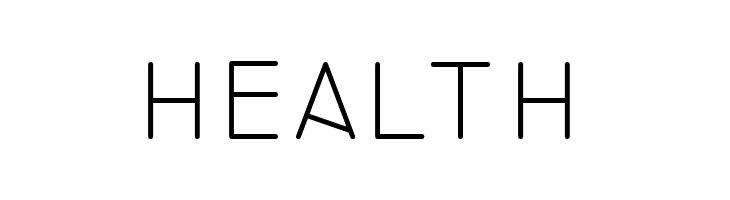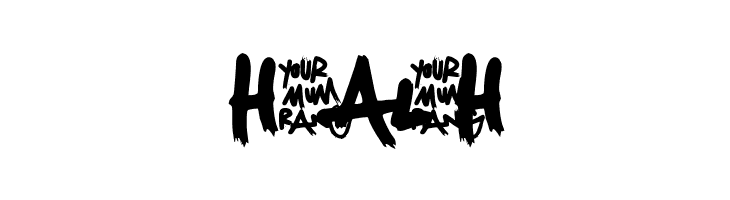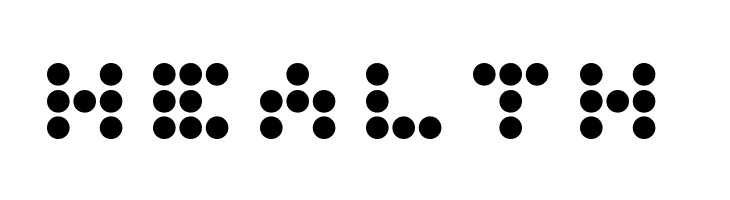
( Sigit Nur Wicaksono - creativemarket.com/ogit )
A modern, geometric sans-serif font with clean lines and balanced spacing.
( Start Digital - Luciano Arnold - startdigital.me )
A modern dotted font with evenly spaced dots forming each character.
( Thomas Breure - www.thomasbreure.com )
A bold, geometric font with a modern and impactful design.
( Thomas Breure - www.thomasbreure.com )
A modern, geometric font with parallel line construction for a rhythmic and balanced appearance.
( CHU - schudio.co.uk )
A bold, graffiti-inspired font with dynamic, expressive strokes.
( Falexoo - en.fakoo.de )
A decorative dot-based font with a modern, pixelated style.
( Font Environment - www.fontenvironment.com/ )
A bold, handwritten font with a playful and dynamic style.
( Font Environment - www.fontenvironment.com/ )
A bold, playful handwritten font with an informal and dynamic style.
( Font Environment - www.fontenvironment.com/ )
An outlined, playful font with a hand-drawn, whimsical style.
( Peter Wiegel - www.peter-wiegel.de )
An elegant, historical script font with intricate flourishes and a vintage charm.